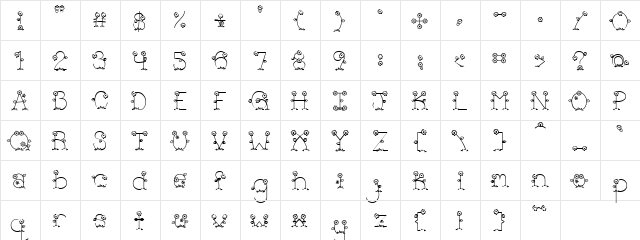
PC Garden 1 Regular
Design Context for PC Garden 1 Typeface
PC Garden 1 is a composed and adaptable typeface that performs quietly and consistently across a wide range of design contexts.